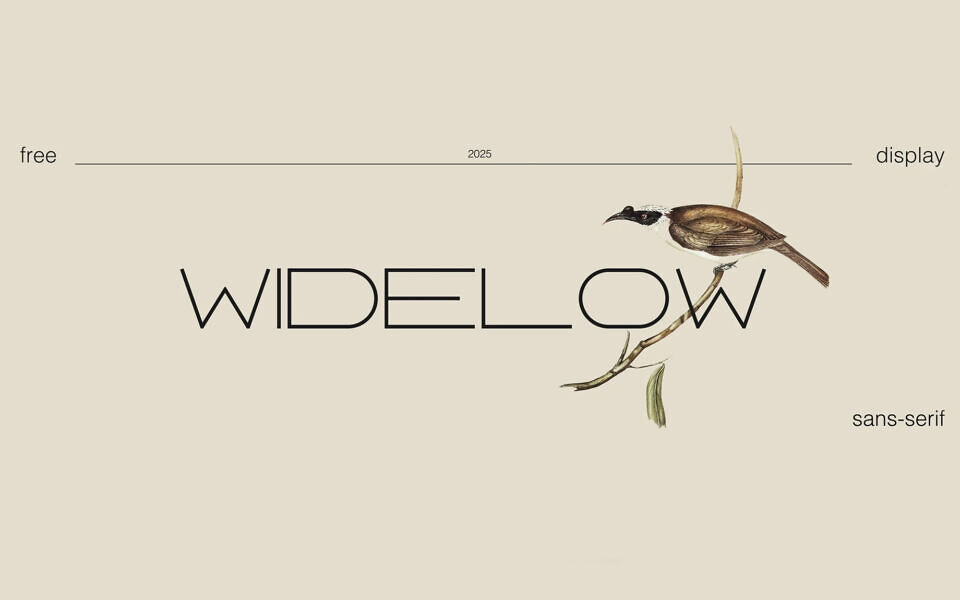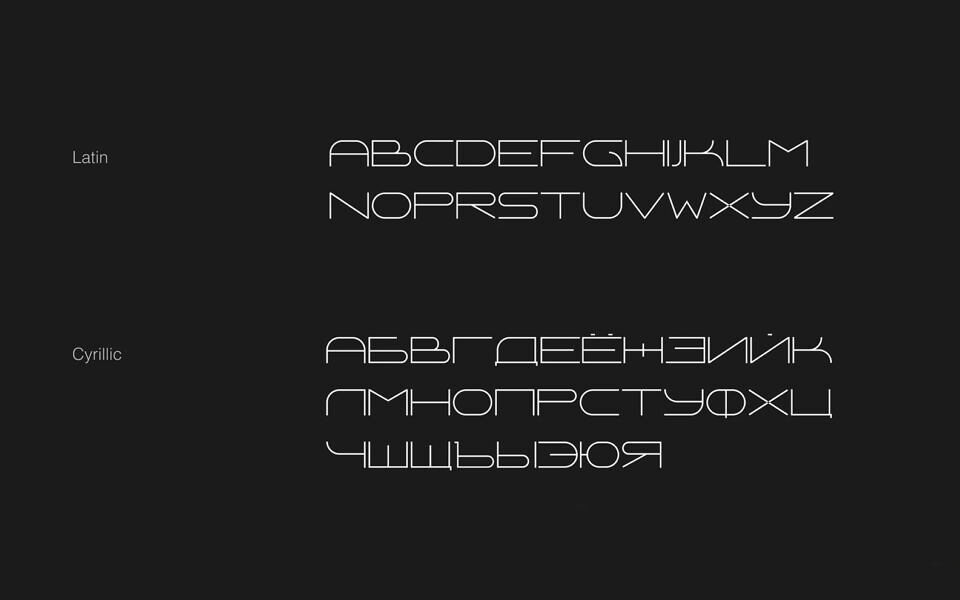
Widelow is a display sans-serif with thin lines and wide proportions. Its design combines technological precision and minimalism, inspired by architectural structures. Each letter is built with strict attention to proportion, giving the typeface a sense of harmony and visual stability.
Supports Cyrillic and Latin (uppercase only). Perfect for short headlines, identity systems, posters, and experimental graphic projects.